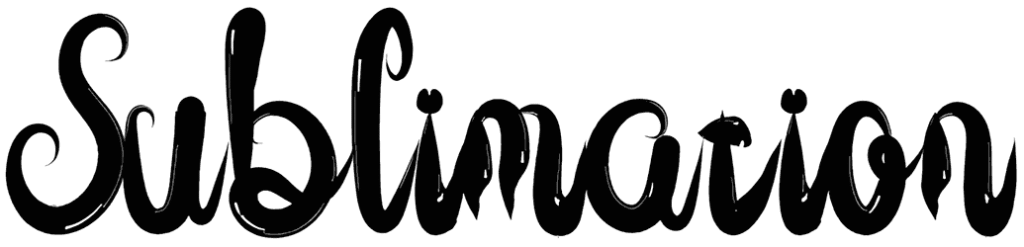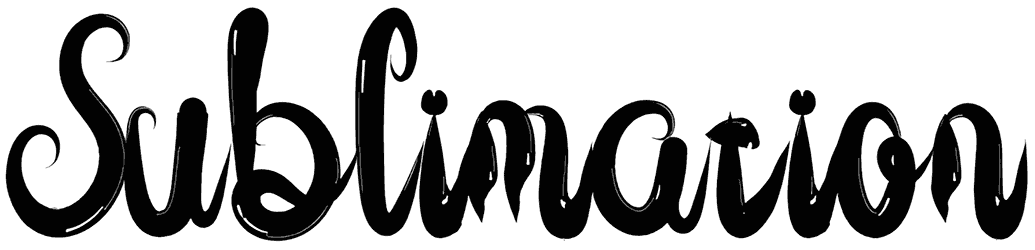
Sublimation Font
Do you mean to design posters, cards, and flyers? Then, Sublimation handwritten is exactly the font for you. Its unique design can give a cursive and vintage look to any project design.
This roly-poly font can work hand in hand with happy projects like birthday designs, wedding invitations, wall displays, and infographics. If interested in a fun script font, we suggest you take a closer look at this one.
Sublimation is a cool and simple handwritten font. Its playfully and charming shape makes this font easily readable and very fun to use in a variety of projects.